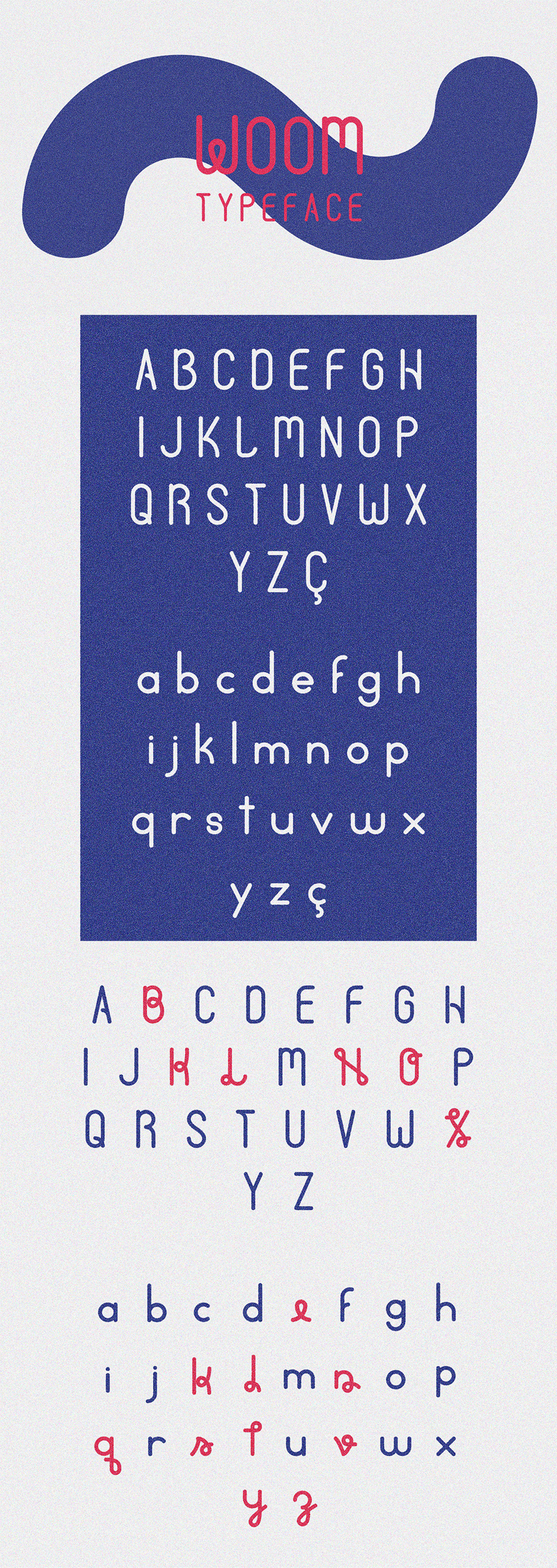
Woom Free Contemporary Typeface
WOOM is a conceptual typeface inspired by contemporary artists. Typeface was a personal project. It’s FREE Download here: goo.gl/d0HSgy